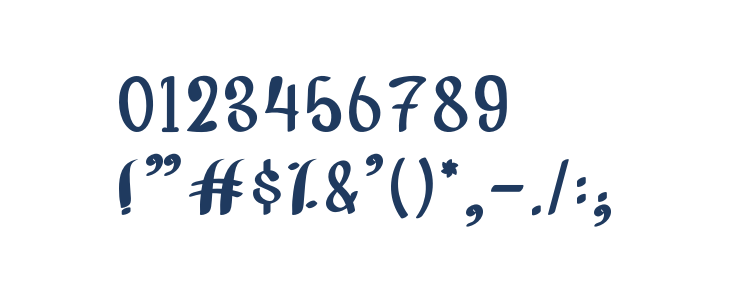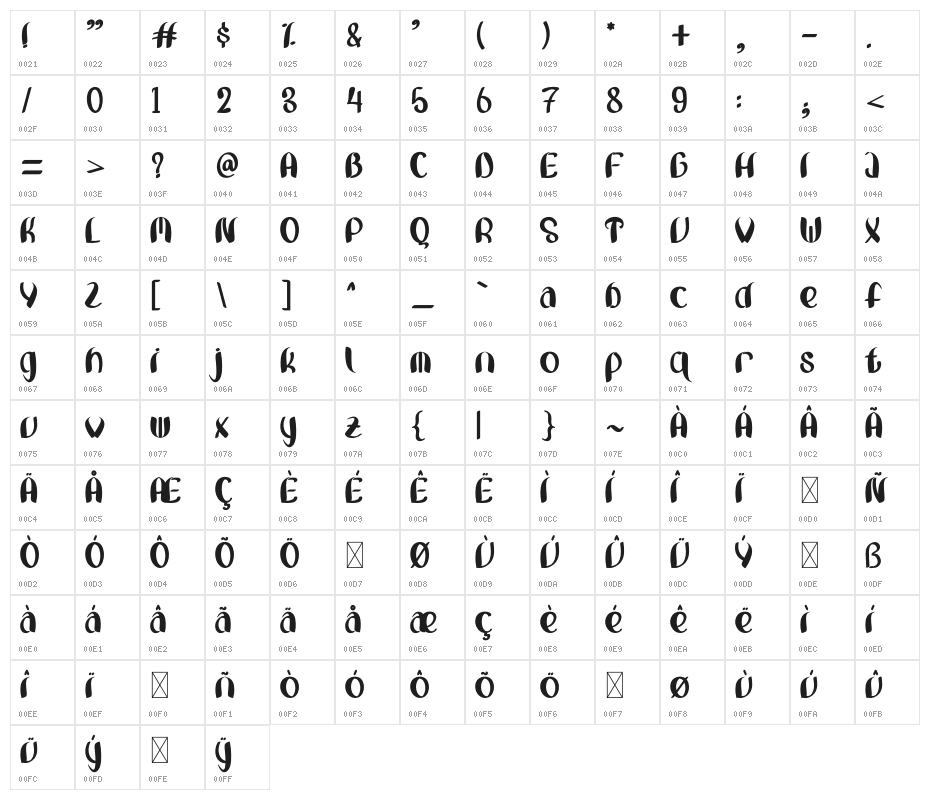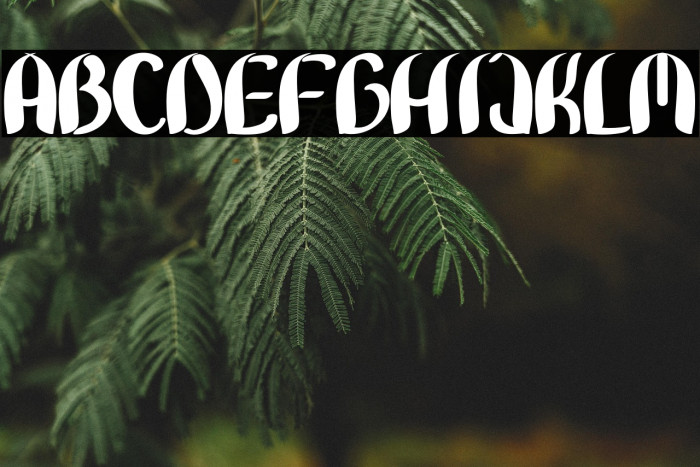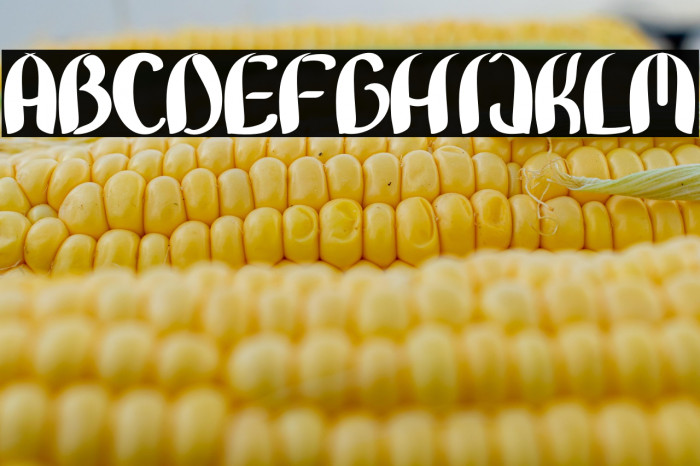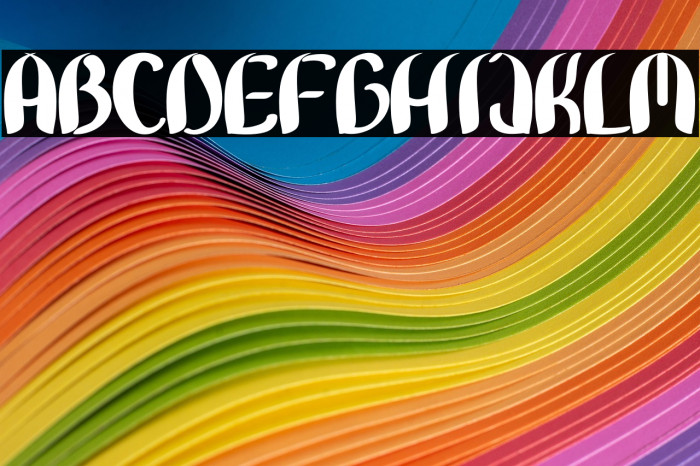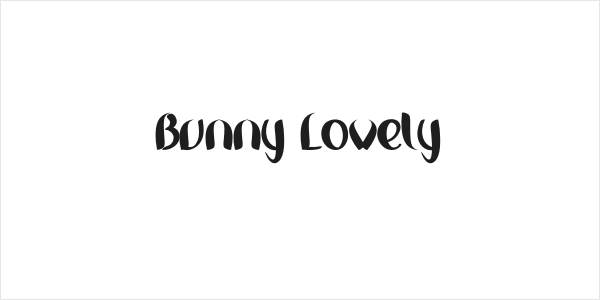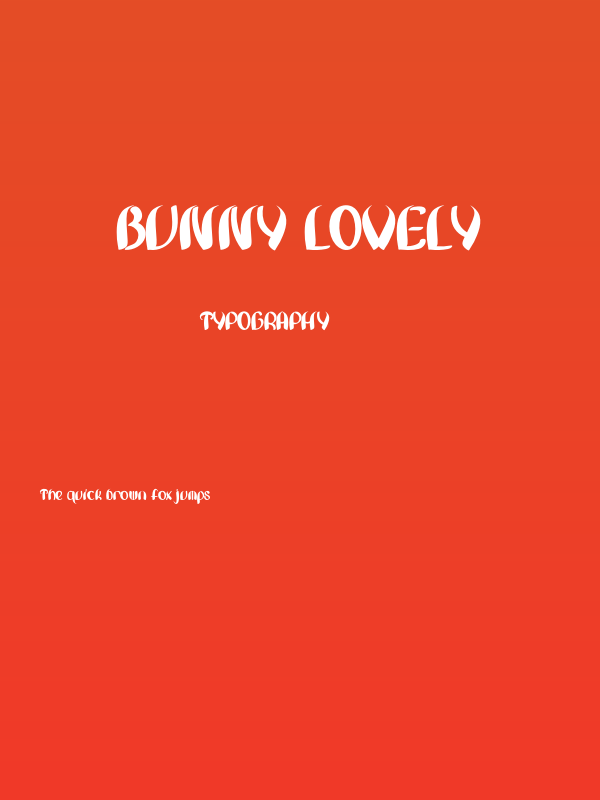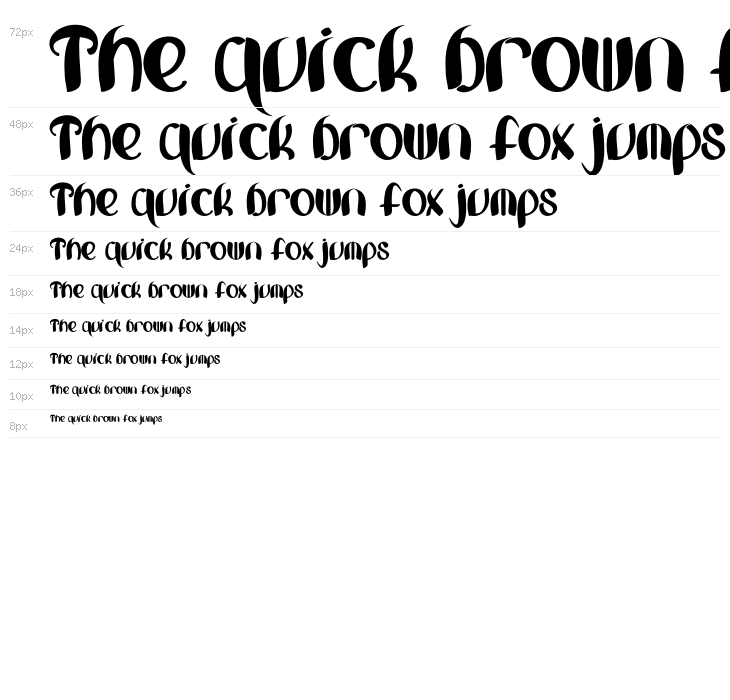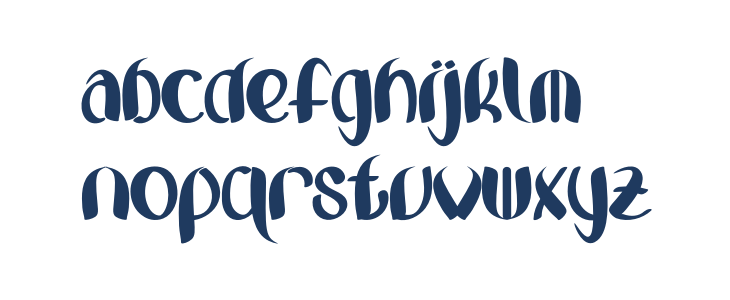
Bunny Lovely Font
Bunny Lovely Description
This font features a playful and whimsical design with bold, rounded strokes that create a sense of movement and energy. The letters have a unique, almost hand-drawn appearance, with varying stroke widths that add a dynamic quality. The uppercase and lowercase letters maintain a consistent style, with the lowercase letters slightly more condensed. Numbers and special characters are designed to match the playful aesthetic, making them suitable for creative and informal applications. The overall look is both modern and artistic, perfect for projects that require a touch of fun and creativity.
| Proposed Projects | Ideal for children's books, playful branding, greeting cards, and creative posters. |